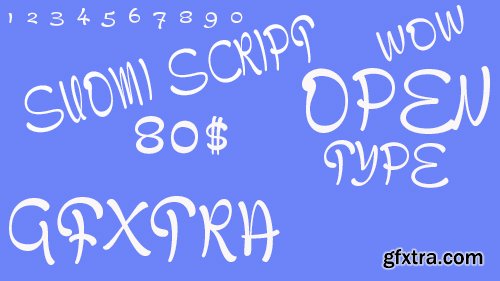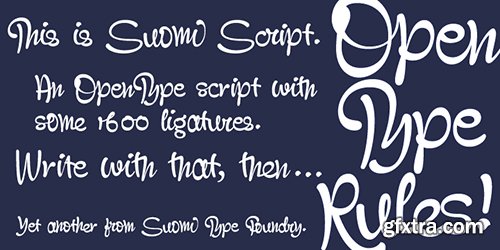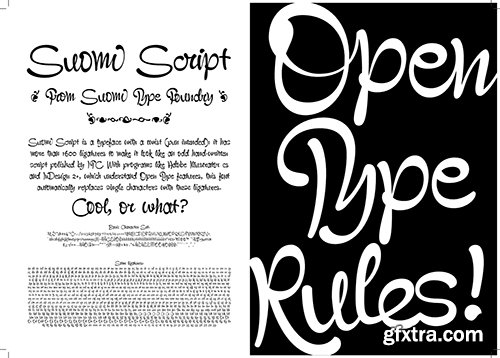
Suomi Script is a typeface with a twist (pun intended): it has more than 1600 ligatures with two or more glyphs connected to make it look like an odd hand-written script polished by ITC.
With Open Type savvy programs this font automatically replaces single characters with the ligatures. Some hand kerning is needed here and there.